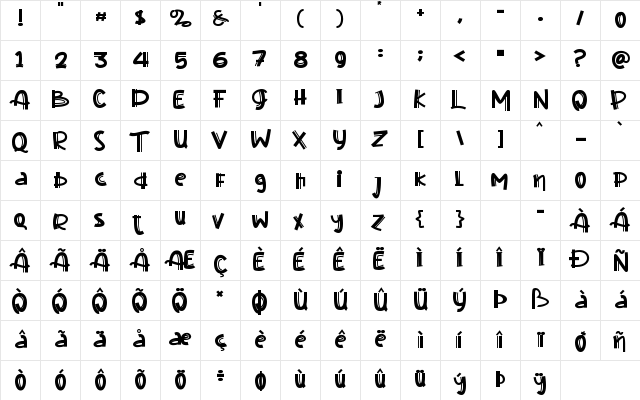
Sweet Husky Regular
Design Context for Sweet Husky Typeface
Sweet Husky is a composed and adaptable typeface that performs quietly and consistently across a wide range of design contexts.
Pro Tip: Pair Sweet Husky with a font of contrasting weight or personality to build a more expressive typographic hierarchy.